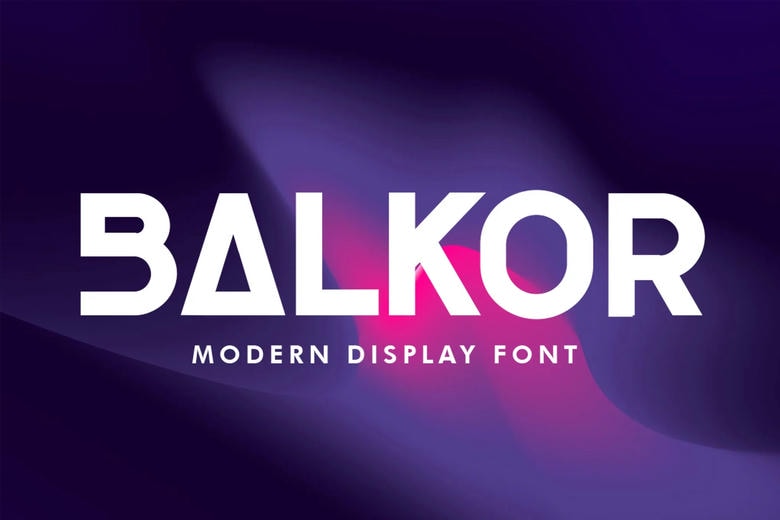
Balkor Font
Balkor is a modern sans-serif typography features distinct lowercase letters to create futuristic designs. You can create logos using this font for any design task. The free version provides all uppercase and lowercase letters and a few special characters too.
Balkor Sans Serif Font